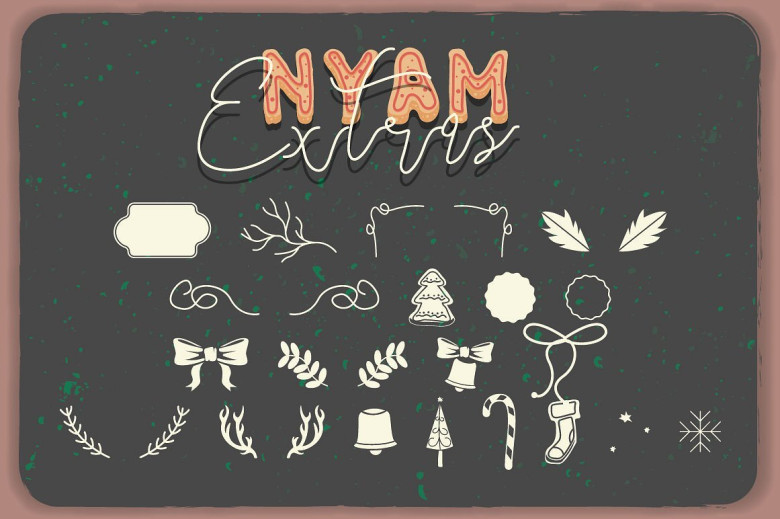
NYAM & Eastpine + Extras
NYAM & Eastpine designed by Drizy, this is a premium font, are sold on creativemarket, but it was great, it is free today for download. Nyam is a layered typeface, inspired from cookies and the christmas ? Cute and sweet font, great for creating a eye-catching headlines. And than Eastpine is modern script font, every single letters have been carefully crafted to make your text looks beautiful. With modern script style this font will perfect for many different project ex: quotes, blog header, poster, wedding, branding, logo, fashion, apparel, letter, invitation, stationery, etc..